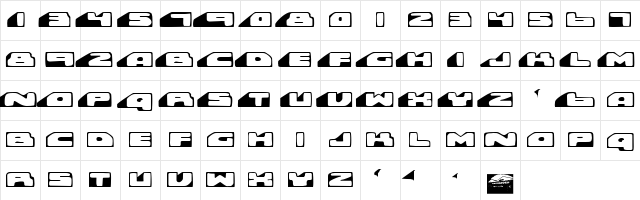
Rollover Regular Free Font
Rollover Regular
Design Context for Rollover
Rollover is a composed and adaptable typeface that performs quietly and consistently across a wide range of design contexts.